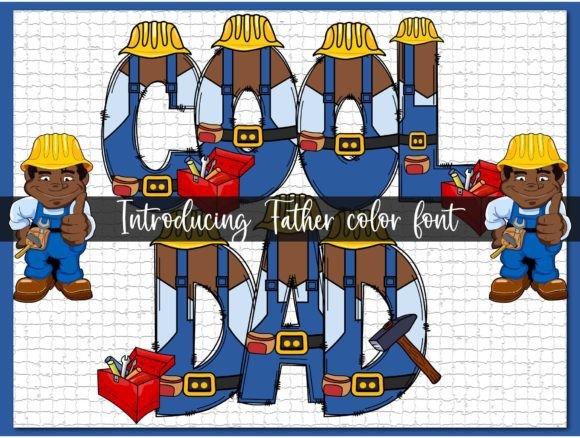
Introducing Cool Dad Font, a vibrant and visually striking addition to your font collection! Created by MDF, this font is the perfect blend of creativity and style, designed specifically for Silhouette Studio. With its colorful and original appearance, Cool Dad Font is sure to captivate and inspire users in their design endeavors.
Crafters, rejoice! Cool Dad Font is a must-have for all your crafting projects. Whether you're creating stunning DIY crafts, personalized gifts, or engaging scrapbook layouts, this font will elevate your creations to new heights. The wide range of colors and unique letter designs will add a touch of excitement and individuality to your projects, making them truly one-of-a-kind.
Digital designers, get ready to unleash your creativity with Cool Dad Font. From eye-catching website designs to captivating social media graphics, this font will bring your ideas to life with its bold and dynamic presence. Stand out from the crowd and leave a lasting impression on your audience with this font's striking visual appeal.
Presentations will never be boring again! Cool Dad Font injects a burst of energy into your slides, making them visually captivating and memorable. Whether you're delivering an important business pitch or creating a lively classroom presentation, this font will grab attention and keep your audience engaged throughout.
And let's not forget about greeting cards! Cool Dad Font adds a touch of playfulness and charm to your heartfelt messages. Whether it's a birthday, anniversary, or holiday greeting, this font will convey your emotions with its colorful and expressive letterforms, making each card a delightful surprise for the recipient.
In summary, Cool Dad Font is not just another font - it's a creative powerhouse that will revolutionize your design projects. With its captivating colors, originality, and versatility, this font is a game-changer for crafters, digital designers, presenters, and anyone seeking to add a touch of excitement to their creations. Download Cool Dad Font today and unlock a world of endless possibilities!